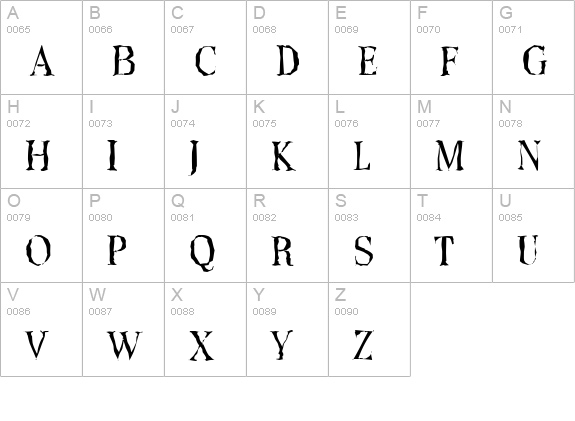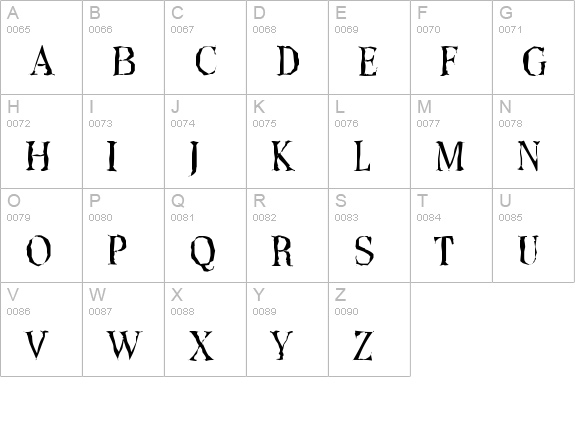
ToledoRandom-Regular Font Details
ToledoRandom-Regular is the standard, neutral variant in the ToledoRandom typeface family \xE2\x80\x94 well suited to general body text, paragraphs, and standard typographic work.
ToledoRandom-Regular is a unique and versatile font that exudes a sense of whimsy and spontaneity. Its irregular and playful design makes it perfect for adding a touch of charm to any project. This font is free to download at FontsMarket.com, making it easily accessible for designers looking to infuse their work with creativity and personality. With its quirky yet legible style, ToledoRandom-Regular is sure to stand out and make a statement in any design piece. Whether used for headlines, logos, or any other creative project, this font is a fantastic choice for those seeking a fun and engaging typeface. Download ToledoRandom-Regular today and let your creativity shine!